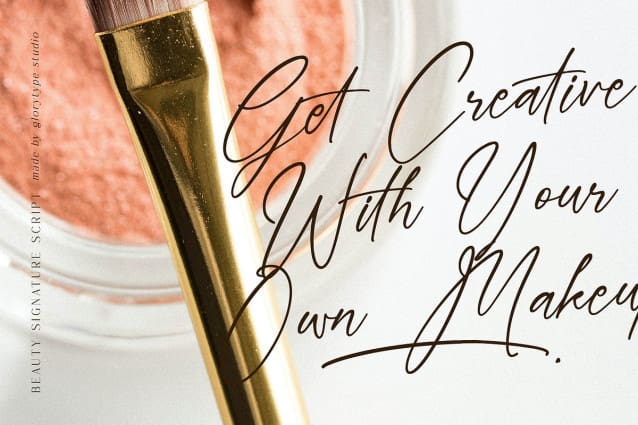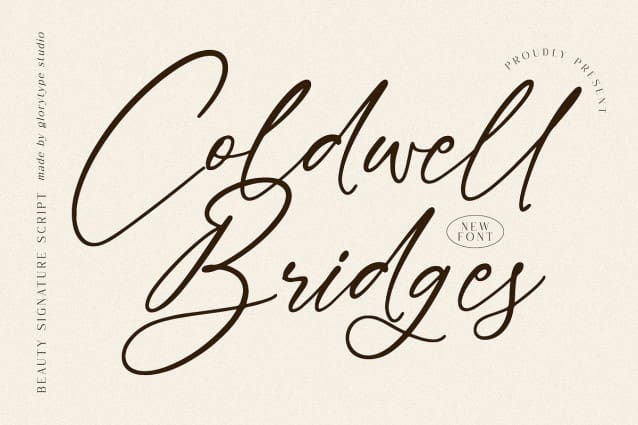
Coldwell Bridges Font
Coldwell Bridges Font – Beauty Signature Script , from Glorytype Studio, suitable for any projects such as: logos, branding projects, homeware designs, product packaging, mugs, quotes, posters, shopping bags, t-shirts, book covers, name card, invitation cards, greeting cards, label, photography, watermark, special events, and all your other lovely projects that need a beautiful script taste.